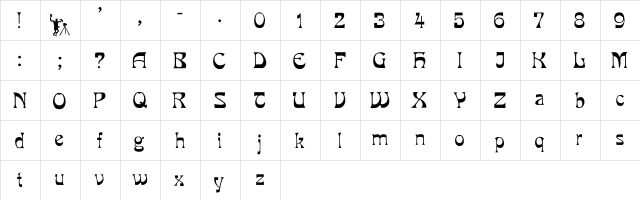
Juan Miro Regular Font Preview
Juan Miro Regular
Design Context for Juan Miro Typeface
Juan Miro is a composed and adaptable typeface that performs quietly and consistently across a wide range of design contexts.